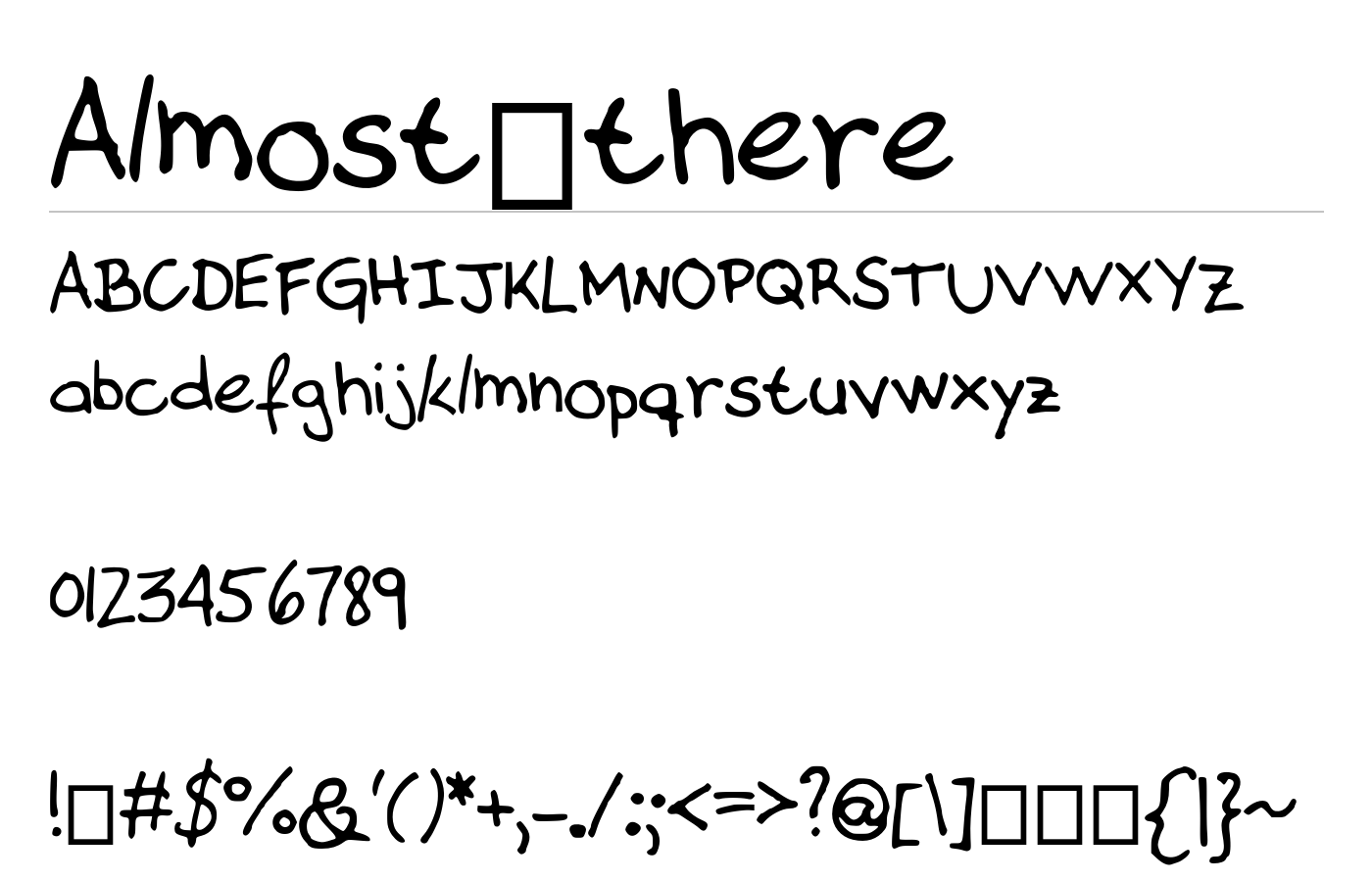
Almost_there is a casual, handwritten sans serif font with a playful and informal feel, featuring irregular strokes and a slightly uneven baseline that adds personality and warmth. Its light weight and open letterforms make it approachable, perfect for projects that want to convey friendliness and authenticity. This font works best in creative, personal branding, children’s materials, or relaxed editorial designs where a natural, hand-crafted look is desired.
Almost_there Font
About Almost_there Font